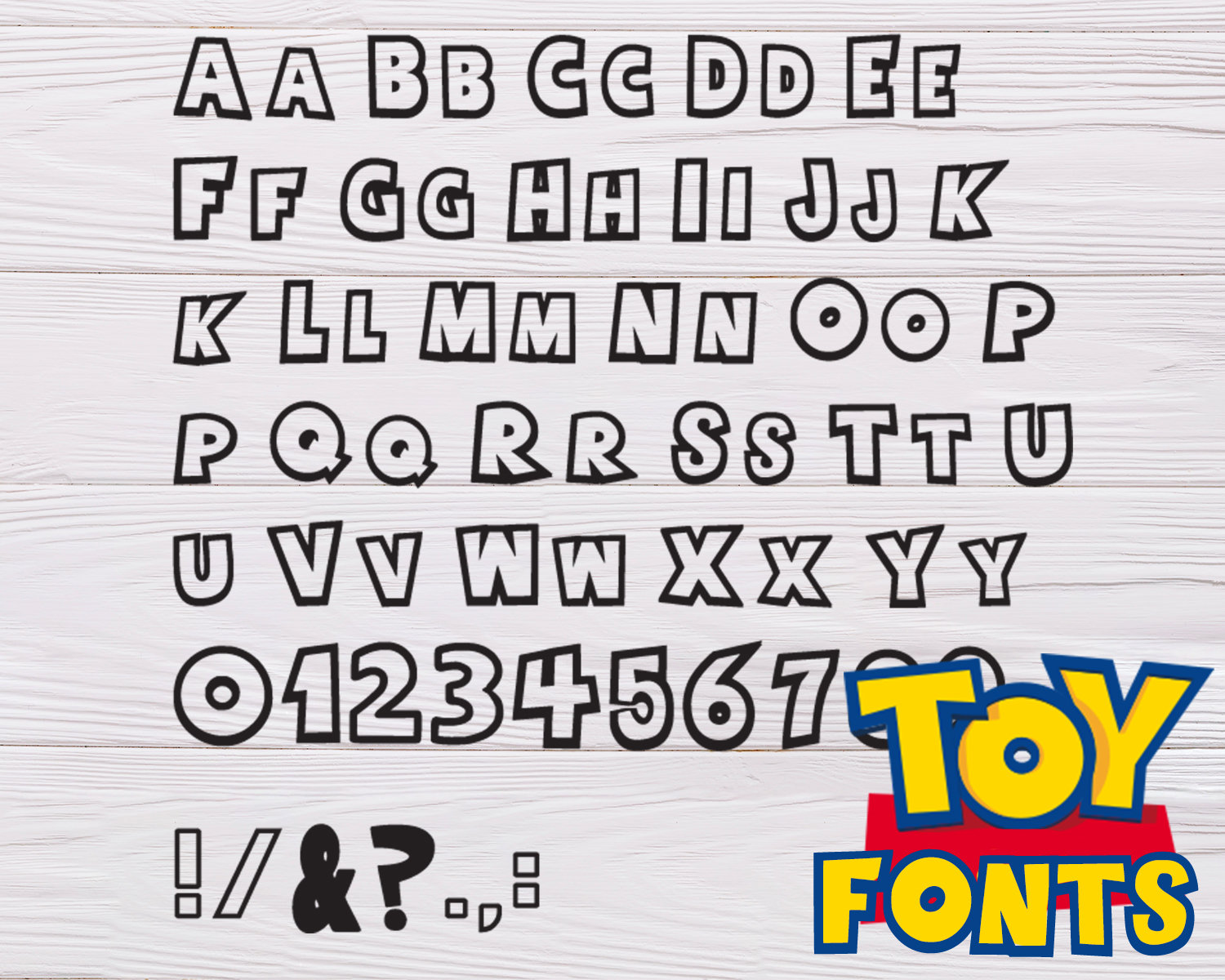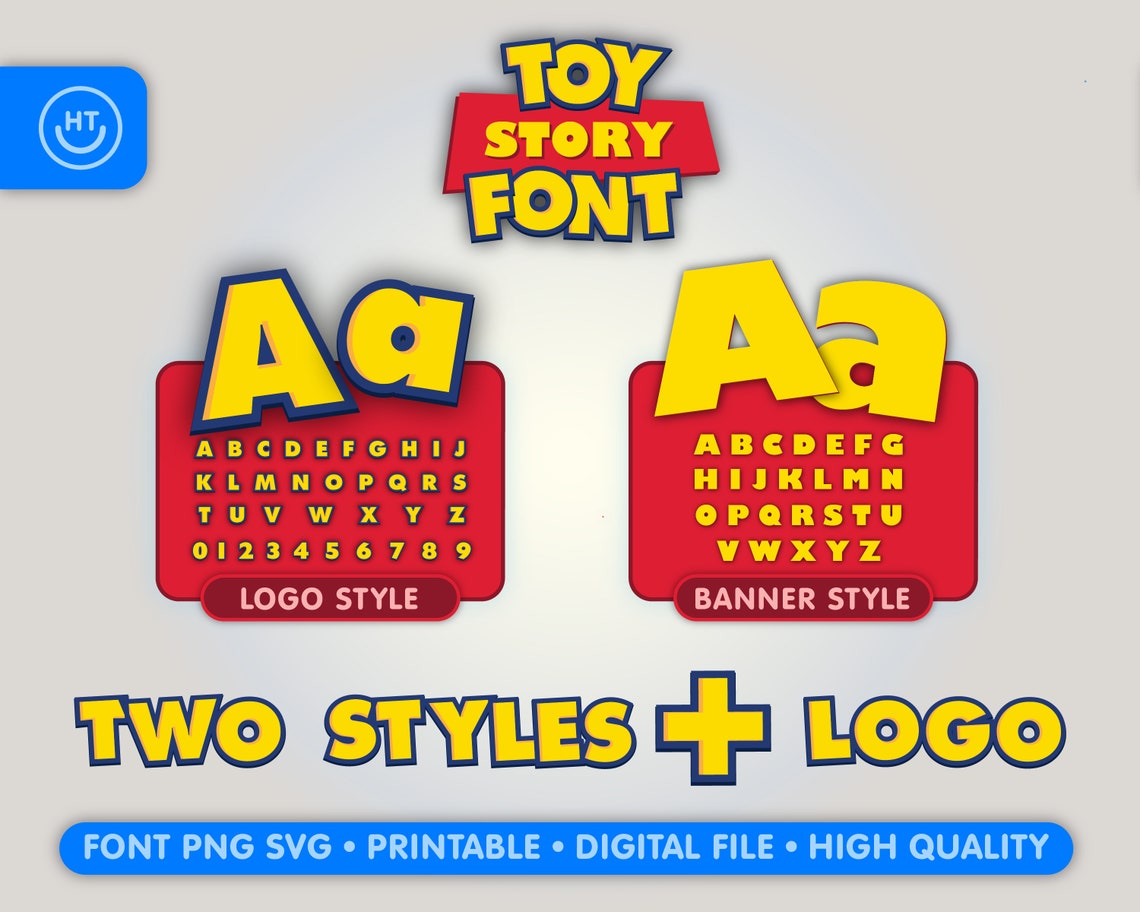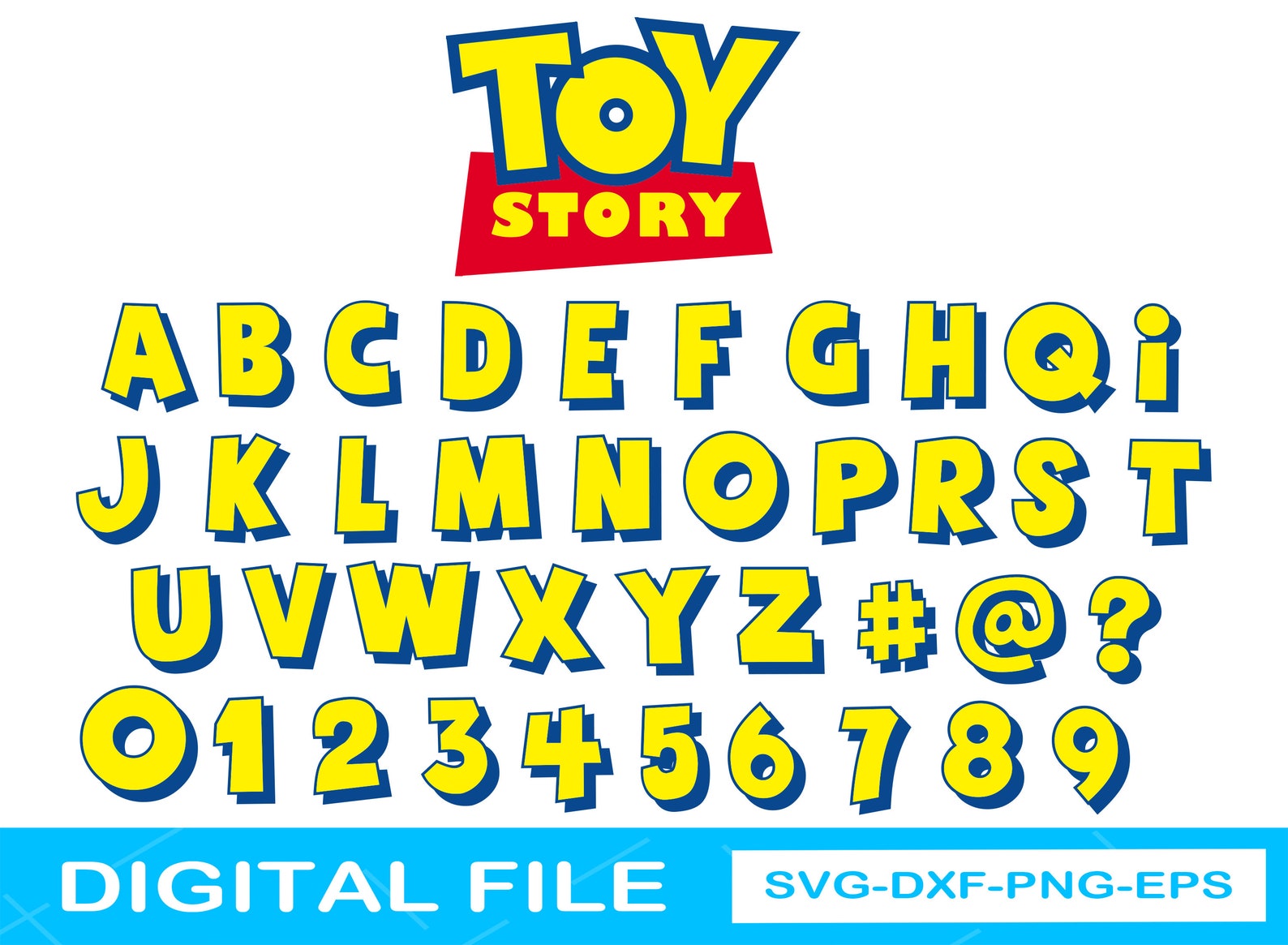
What Is The Font For Toy Story . Both fonts are free for personal use and created by fg studios. Do you wonder what font is used in the toy story artwork, posters and title scene? While typetype font foundry took the all right reserved of this basic font family. Toy story 2 in 1999, toy story 3 in 2010, and toy story 4 in 2019. the toy story logo was designed using two distinct styles of lettering. The “story” portion likely used. This font is designed by sergey ryadovoy and jovanny lemonad in 2016. The best replicas available for the toy story font are willy which resembles toy and rumble which resembles story. the “story” part was probably designed using the font gill sans bold, which is a commercial font and can be purchased. what font is the toy story font? toy story font. the font family used for the logo of toy story is very similar to the peace sans font. The official toy story font is likely owned. it follows a group of toys that come to life and go on adventures when their owner is not around. today we present the toy story typeface from walt disney’s 1995 american adventure film toy story, released november 19, 1995, has become one of the.
the “story” part was probably designed using the font gill sans bold, which is a commercial font and can be purchased. The best replicas available for the toy story font are willy which resembles toy and rumble which resembles story. While typetype font foundry took the all right reserved of this basic font family. it follows a group of toys that come to life and go on adventures when their owner is not around. The film’s success spawned three sequels: The official toy story font is likely owned. what font is the toy story font? the toy story logo was designed using two distinct styles of lettering. Both fonts are free for personal use and created by fg studios. Toy story 2 in 1999, toy story 3 in 2010, and toy story 4 in 2019.
What Is The Font For Toy Story Toy story 2 in 1999, toy story 3 in 2010, and toy story 4 in 2019. today we present the toy story typeface from walt disney’s 1995 american adventure film toy story, released november 19, 1995, has become one of the. what font is the toy story font? While typetype font foundry took the all right reserved of this basic font family. The official toy story font is likely owned. the “story” part was probably designed using the font gill sans bold, which is a commercial font and can be purchased. toy story font. This font is designed by sergey ryadovoy and jovanny lemonad in 2016. The best replicas available for the toy story font are willy which resembles toy and rumble which resembles story. The film’s success spawned three sequels: Today we present the toy story typeface from walt disney’s 1995 american adventure film. Do you wonder what font is used in the toy story artwork, posters and title scene? the toy story logo was designed using two distinct styles of lettering. The “story” portion likely used. Both fonts are free for personal use and created by fg studios. it follows a group of toys that come to life and go on adventures when their owner is not around.
Toy Story FONT SVG, Instant Download, Toy Story Alphabet SVG, Toy Story What Is The Font For Toy Story Toy story 2 in 1999, toy story 3 in 2010, and toy story 4 in 2019. the “story” part was probably designed using the font gill sans bold, which is a commercial font and can be purchased. the toy story logo was designed using two distinct styles of lettering. The “story” portion likely used. Today we present the. What Is The Font For Toy Story.
Toy Story Font SVG Toy Story Alphabet SVG Toy Story Letters What Is The Font For Toy Story While typetype font foundry took the all right reserved of this basic font family. toy story font. the toy story logo was designed using two distinct styles of lettering. it follows a group of toys that come to life and go on adventures when their owner is not around. This font is designed by sergey ryadovoy and. What Is The Font For Toy Story.
Toy Story Font Svg, UPP623 UPPLOP Graphics Resources What Is The Font For Toy Story today we present the toy story typeface from walt disney’s 1995 american adventure film toy story, released november 19, 1995, has become one of the. it follows a group of toys that come to life and go on adventures when their owner is not around. what font is the toy story font? Today we present the toy. What Is The Font For Toy Story.
Toy Story Font Alphabet png Bundle toy story alphabet toy Etsy What Is The Font For Toy Story The “story” portion likely used. The best replicas available for the toy story font are willy which resembles toy and rumble which resembles story. This font is designed by sergey ryadovoy and jovanny lemonad in 2016. the toy story logo was designed using two distinct styles of lettering. today we present the toy story typeface from walt disney’s. What Is The Font For Toy Story.
Toy Story font svg, toy story alphabet, toy story numbers, toy story What Is The Font For Toy Story Both fonts are free for personal use and created by fg studios. Toy story 2 in 1999, toy story 3 in 2010, and toy story 4 in 2019. The best replicas available for the toy story font are willy which resembles toy and rumble which resembles story. toy story font. the “story” part was probably designed using the. What Is The Font For Toy Story.
Abc Font, Lettering Alphabet, Toy Story Font, Toy Story Crafts, Special What Is The Font For Toy Story the font family used for the logo of toy story is very similar to the peace sans font. Toy story 2 in 1999, toy story 3 in 2010, and toy story 4 in 2019. it follows a group of toys that come to life and go on adventures when their owner is not around. today we present. What Is The Font For Toy Story.
Toy Story Font SVG Toy Story Letters Toy Story Alphabet Toy Etsy What Is The Font For Toy Story The film’s success spawned three sequels: The official toy story font is likely owned. This font is designed by sergey ryadovoy and jovanny lemonad in 2016. Toy story 2 in 1999, toy story 3 in 2010, and toy story 4 in 2019. Today we present the toy story typeface from walt disney’s 1995 american adventure film. The best replicas available. What Is The Font For Toy Story.
TOY STORY FONT svg toy story alphabet toy story numbers toy Etsy What Is The Font For Toy Story The “story” portion likely used. Today we present the toy story typeface from walt disney’s 1995 american adventure film. today we present the toy story typeface from walt disney’s 1995 american adventure film toy story, released november 19, 1995, has become one of the. The film’s success spawned three sequels: The best replicas available for the toy story font. What Is The Font For Toy Story.
Toy Story font svg, toy story alphabet, toy story numbers, toy story What Is The Font For Toy Story The official toy story font is likely owned. The film’s success spawned three sequels: This font is designed by sergey ryadovoy and jovanny lemonad in 2016. what font is the toy story font? Both fonts are free for personal use and created by fg studios. the “story” part was probably designed using the font gill sans bold, which. What Is The Font For Toy Story.